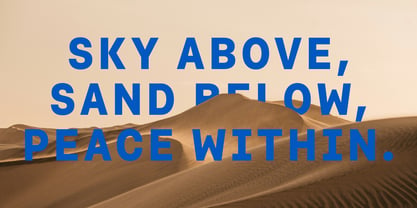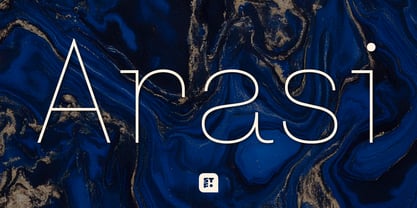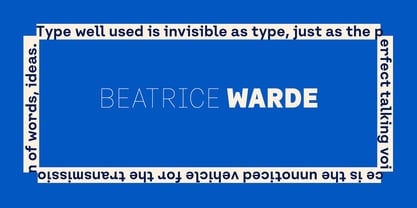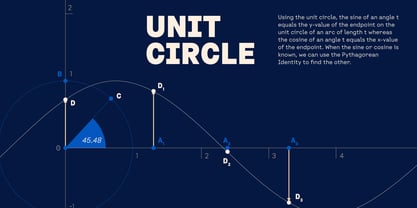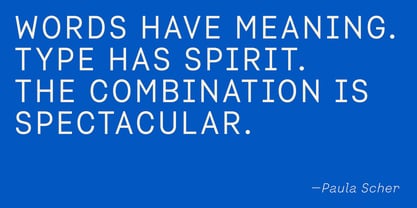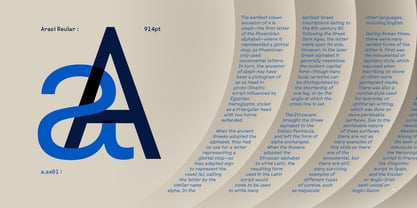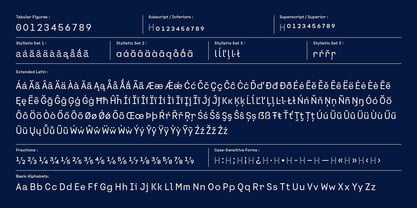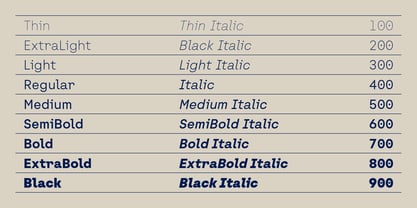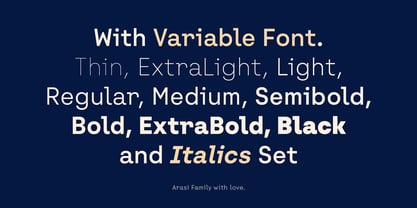
Arasi
by Stawix
The Arasi Font Family was designed by Stawix Ruecha and published by Stawix. Arasi contains 19 styles and family package options. More about this family
Inspired by a love for the monowidth aesthetic of Typewriters, blended with a passion for Futura,the Arasi font was born. The subtle monowidth treatment of characters like 'w' and 'm,' combined with the condensed texture of the uppercase, really brings out the personality of this typeface.
Arasi comes with 9 weights and an italic set, offering variable font support and a range of features designed for a smoother experience.
Designers: Stawix Ruecha
Foundry: Stawix
Located in the Thonglor district of Bangkok, Stawix was founded in 2012 and named for its founder, Stawix Ruecha. The foundry has since strived to reach its three main objectives. “First, our foundry was founded in the hope of starting a movement by designing Latin fonts and Thai alphabets that are suitable, in terms of design, for both languages while providing new possibilities,” Stawix says. “Second, we aim to enhance and maintain the standards of the Thai Type Design industry with fresh ideas. And lastly, we want to continue to pass on our knowledge of type design to the next generation of designers.” Stawix made his MyFonts debut with Seravee, a modern, rounded serif with a geometric base. His foundry has since grown to include designer Kawisara Vacharaprucks and has produced bestsellers like Soin Sans and Amsi Pro, which was inspired by the century-old typeface Block Berthold Condensed. “From our point of view, what makes our foundry unique is the enthusiasm and attentiveness we have towards our clients when they suggest changes or give us comments about our work,” Stawix says. “We believe that the font and the client’s need must be in related, therefore, we are always ready to improve the quality of our font in order to get the best possible outcomes.”